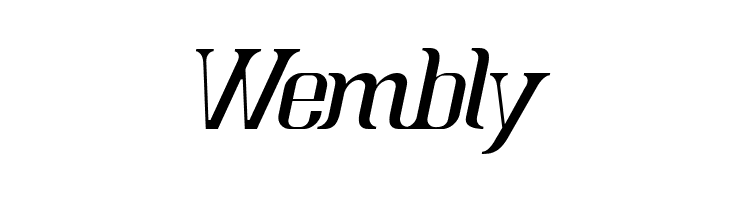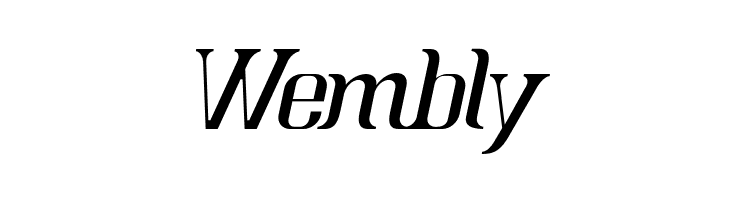
An elegant and dynamic italic font with flowing letterforms and strong serifs.
A sophisticated italic font with a modern classic style and medium contrast.